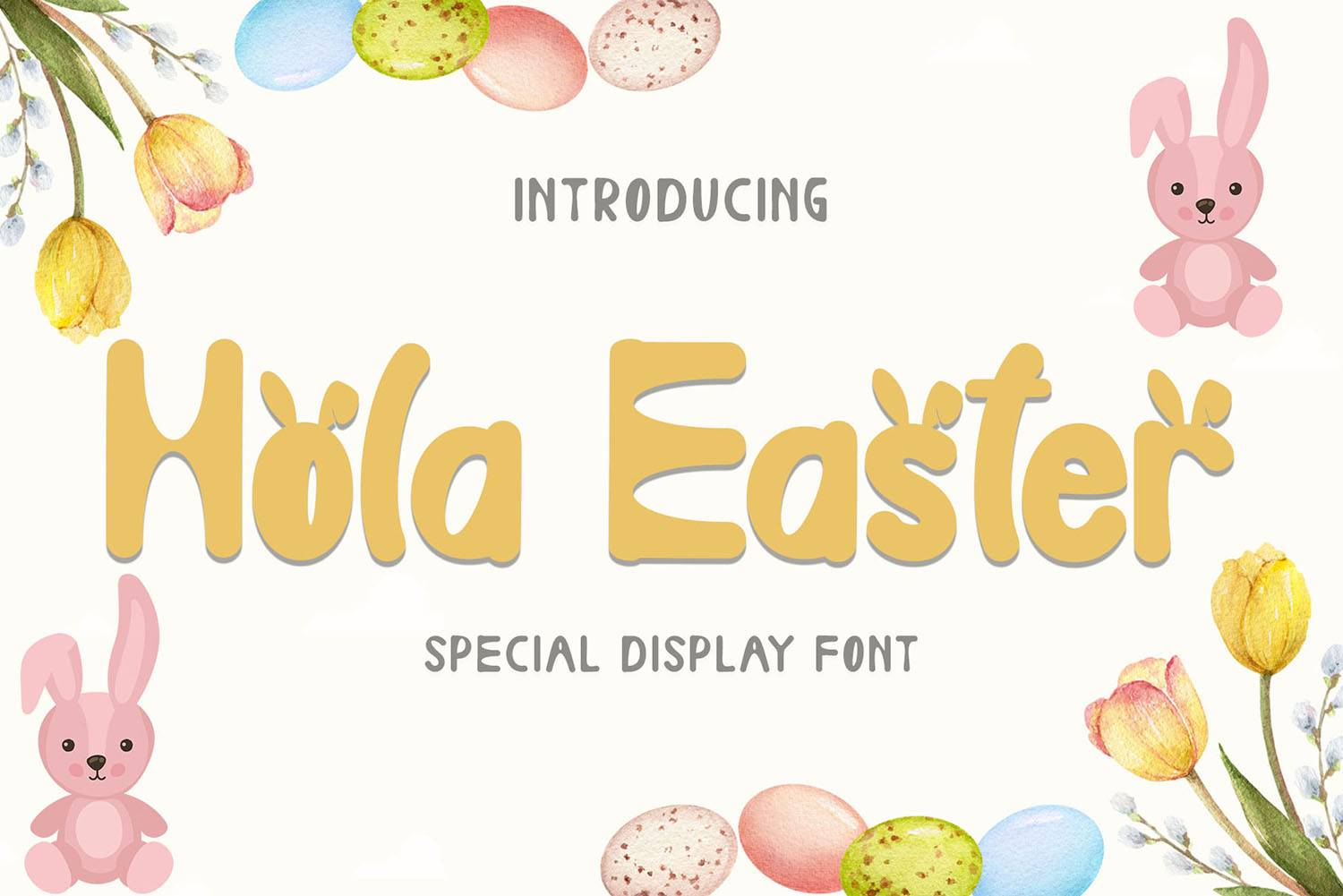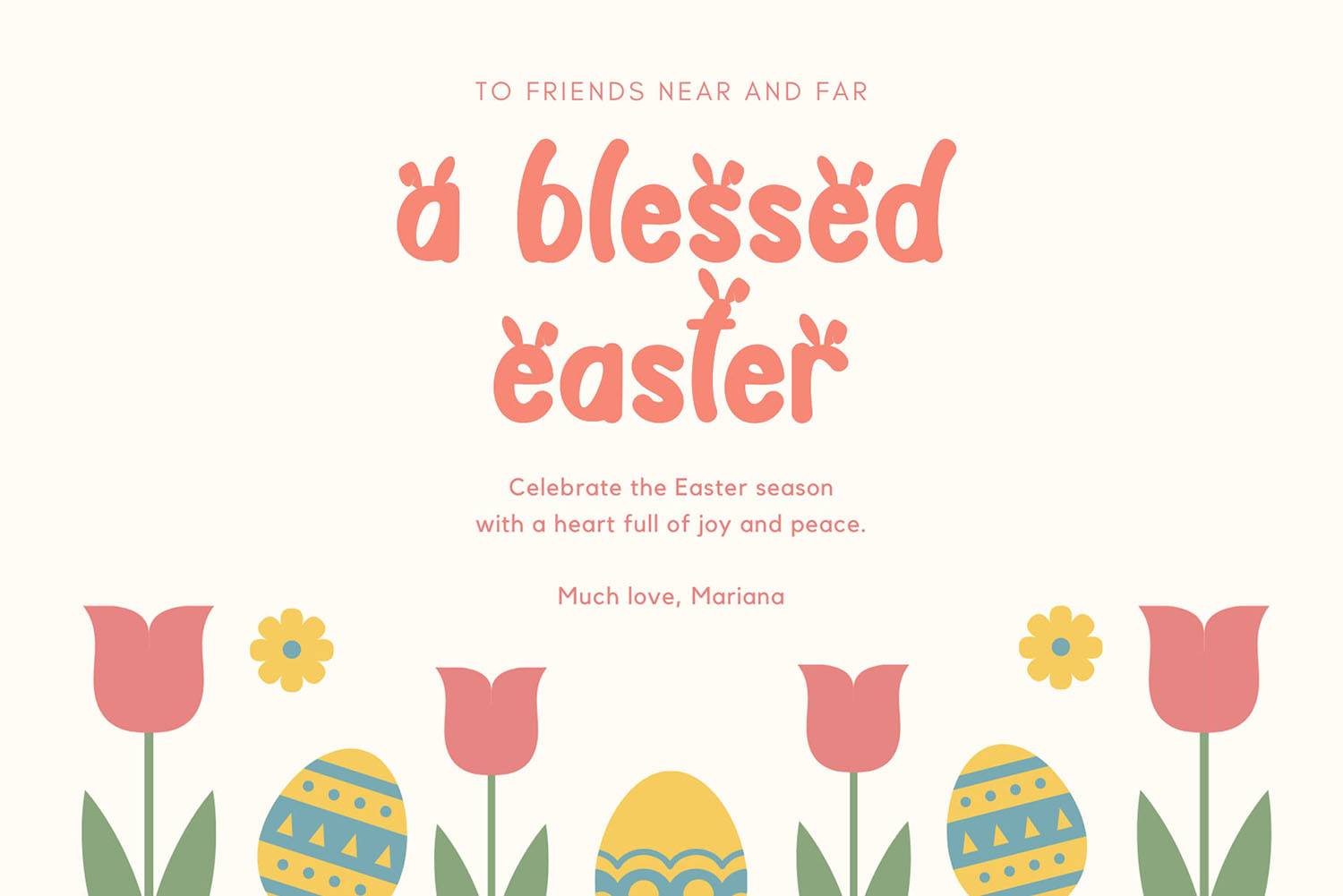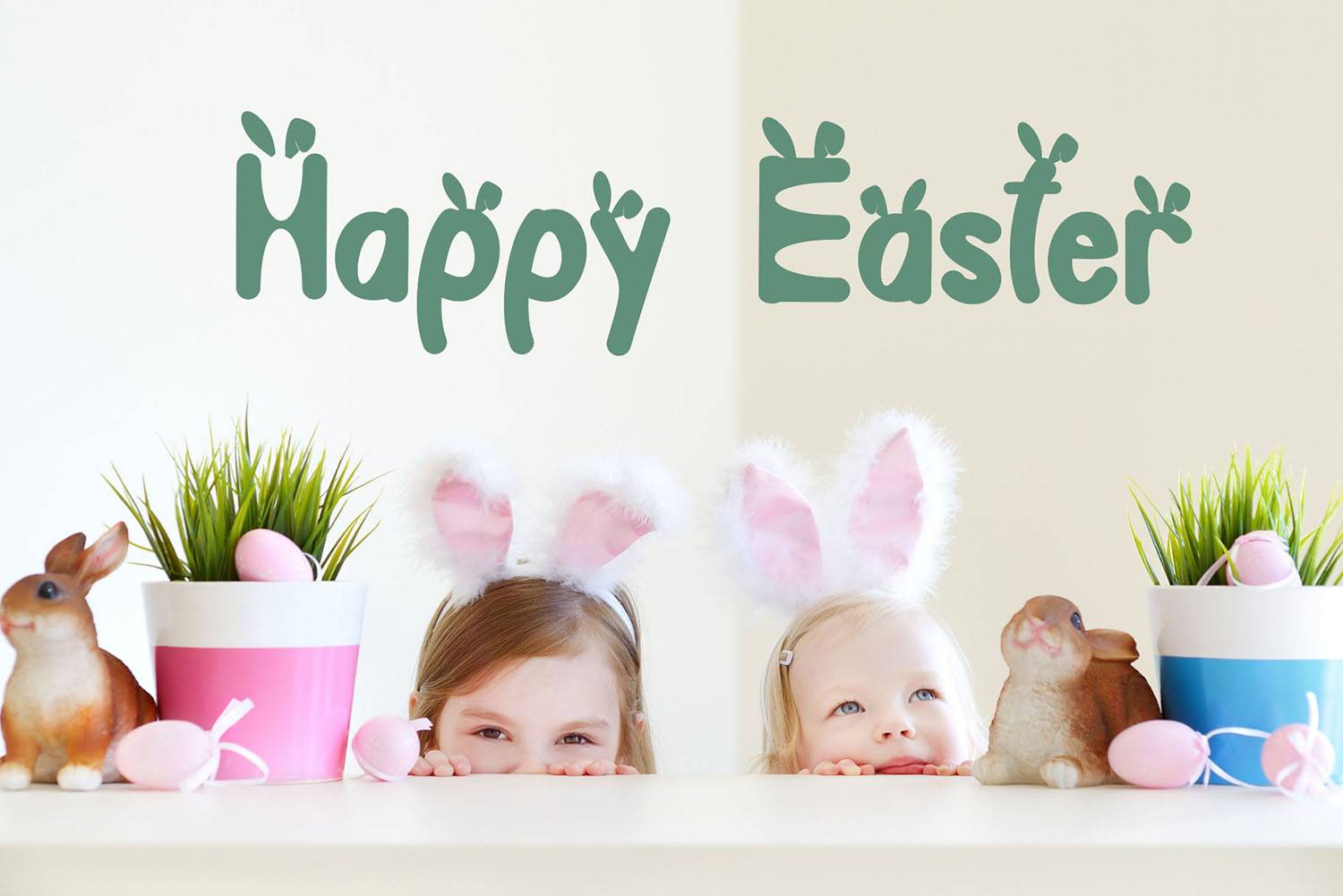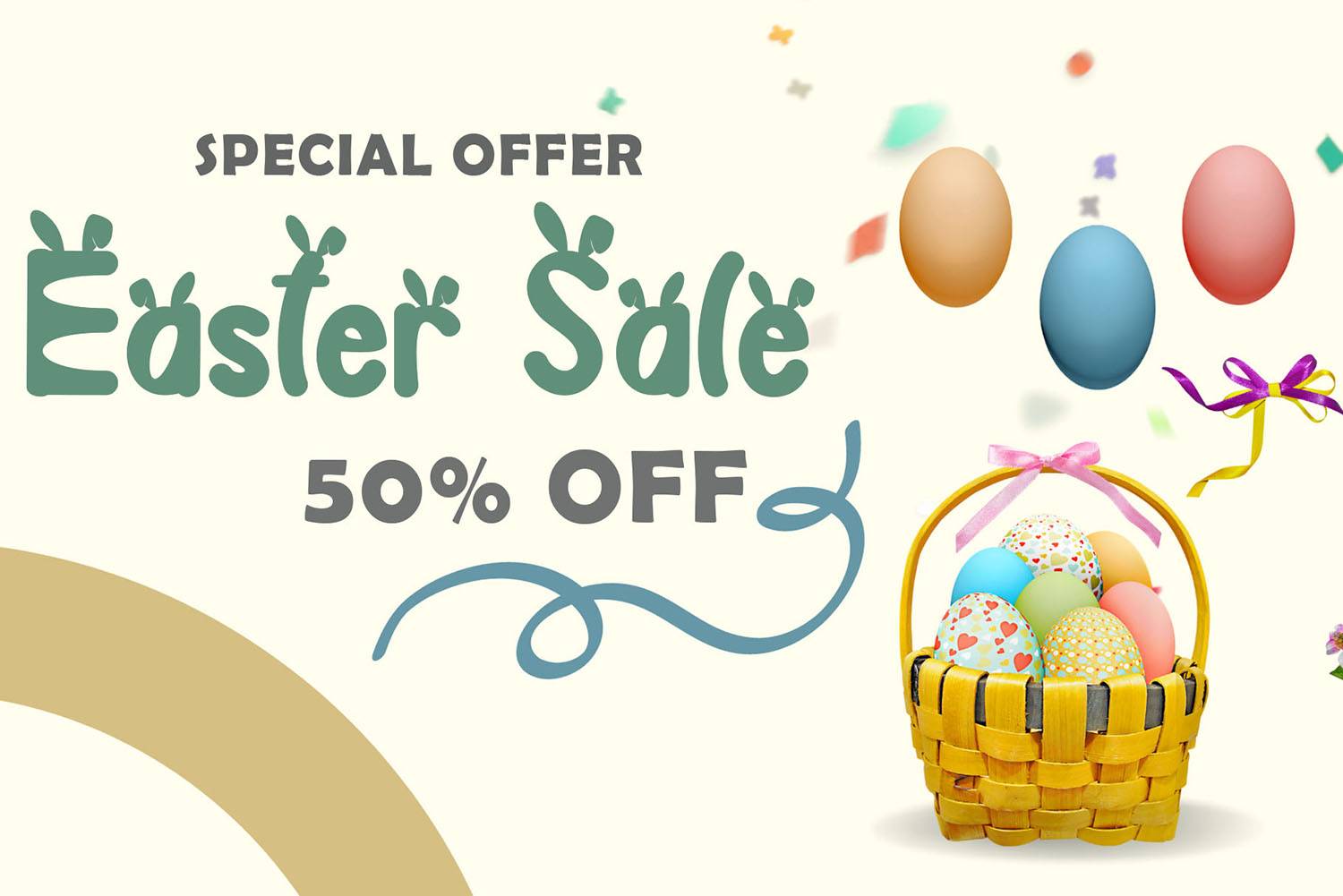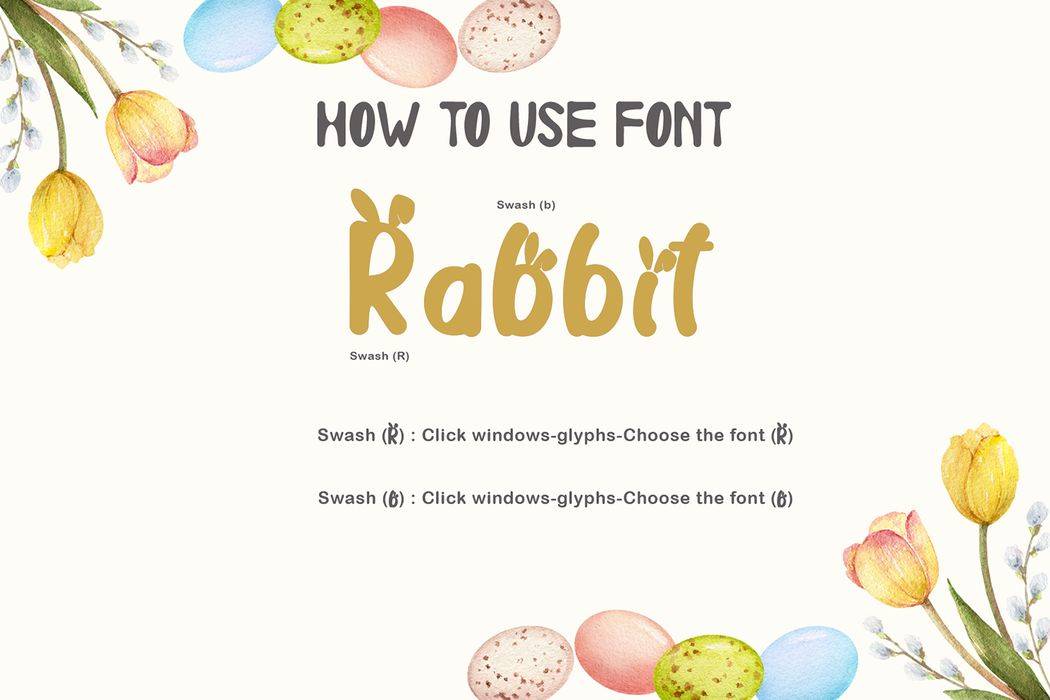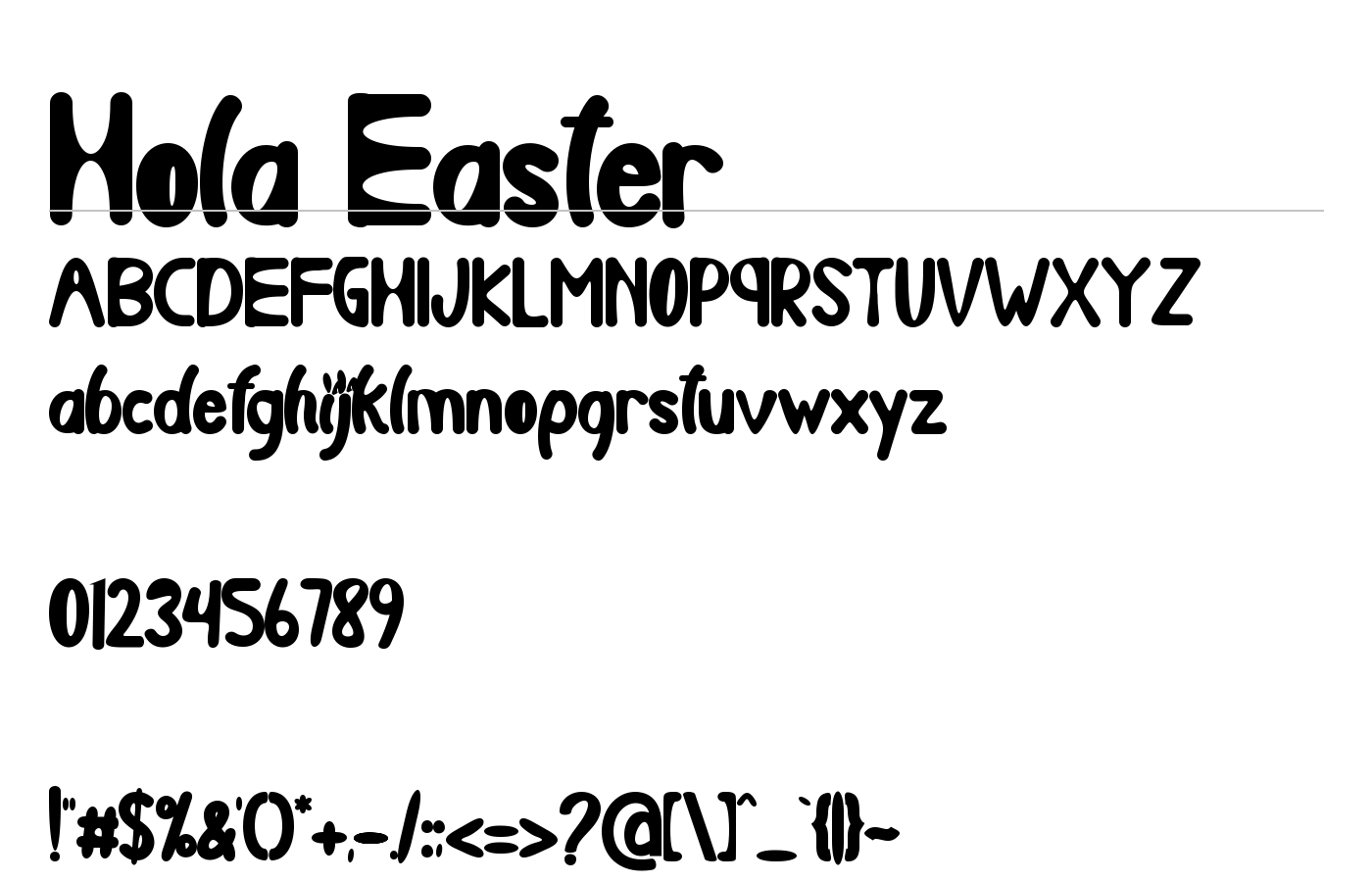
Hola Easter is a playful, rounded sans serif font with a bubbly, hand-drawn feel that adds warmth and friendliness to any design. Its bold, slightly condensed letterforms and quirky details make it perfect for fun, casual projects like children's books, party invitations, or festive branding that seeks an approachable, joyful vibe. This font shines in headlines and display uses where its unique character can grab attention and evoke a lively, cheerful mood.
Hola Easter Font
About Hola Easter Font